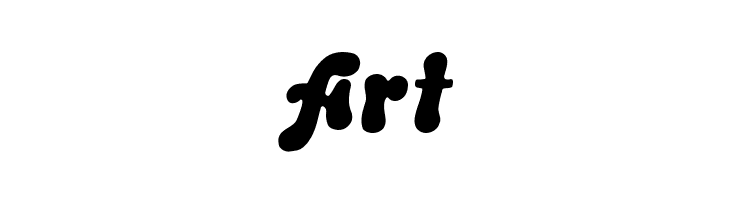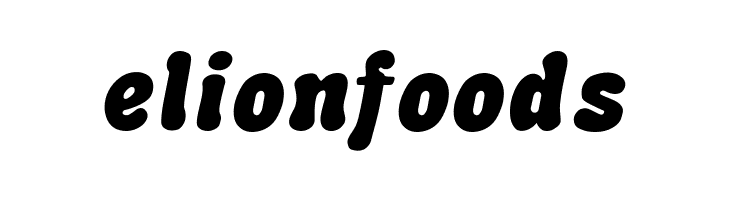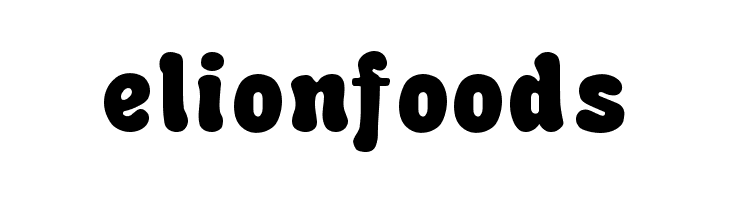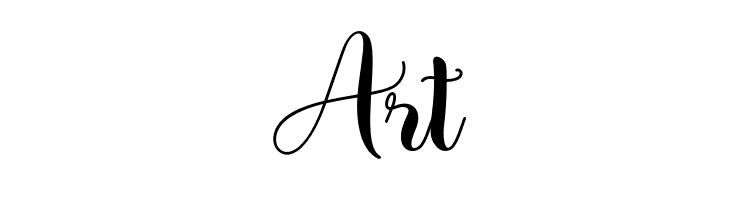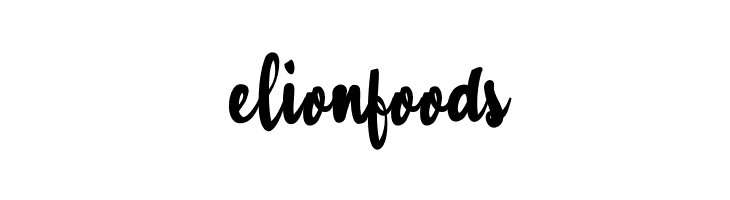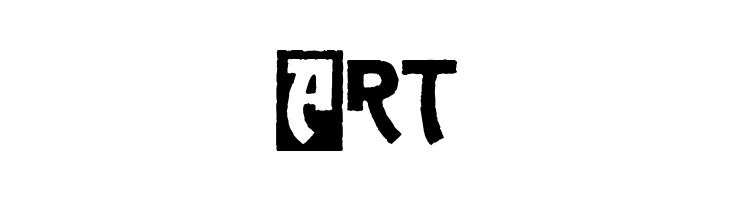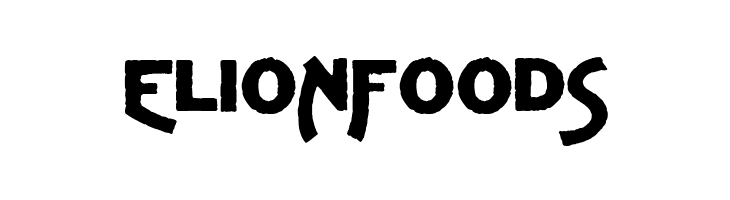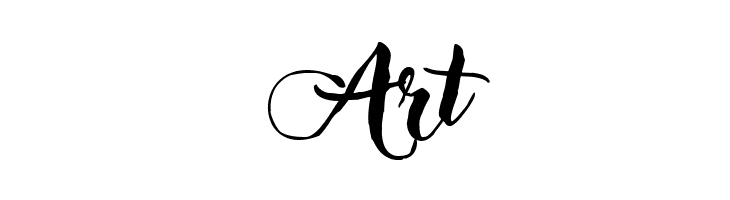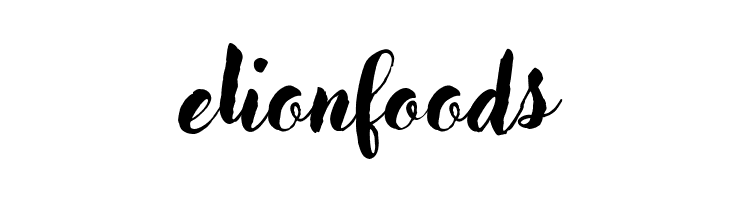
• Adlery
( Fonts by Zetafonts )
A bold, expressive script font with flowing, cursive letterforms and dramatic flourishes.
• Adorable Margherita Script
( Fonts by Cititype )
A graceful and sophisticated script font with flowing, interconnected letters.
• Adreena Script Demo Regular
A flowing, cursive script font with elegant loops and swashes.
• Adreena Script Demo Regular
An elegant script font with flowing, decorative strokes.
• Adulsa Script
A bold, playful script font with smooth curves and dynamic flow.
• Adulsa Script
A bold, flowing script font with elegant curves and playful loops.
• Advera Script
( Fonts by ToniStudio )
A flowing, cursive script font with elegant, connected characters.
• Advert Italic
( Fonts by Rick Mueller )
A bold, playful italic font with rounded, flowing forms and a vintage flair.
• Advert Regular
( Fonts by Rick Mueller )
A bold, playful font with rounded, thick strokes and a whimsical style.
• Advertising Gothic Demo
A bold, gothic-inspired font with sharp, angular edges and high contrast.